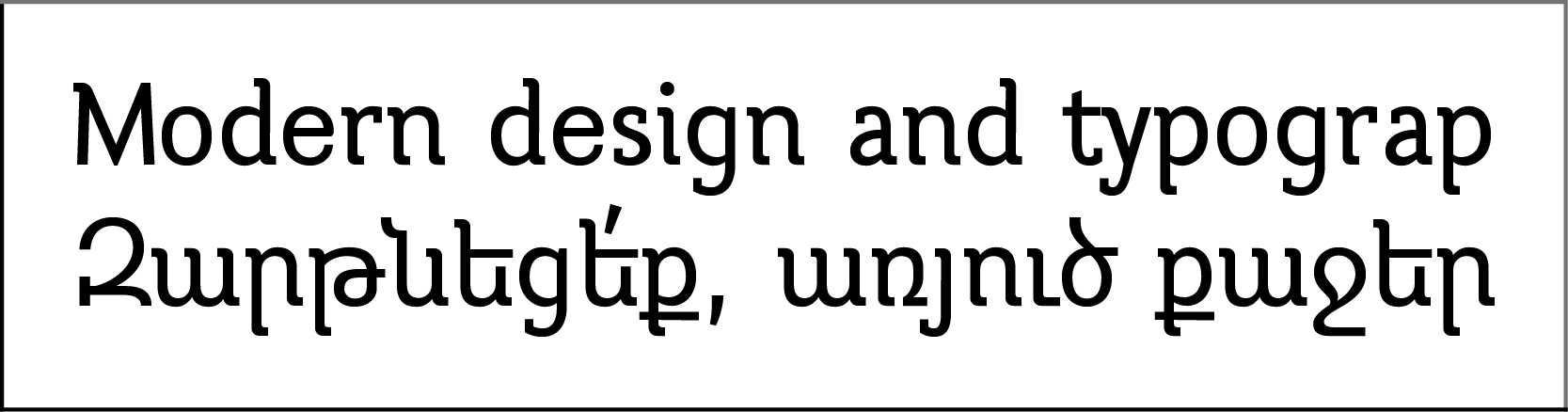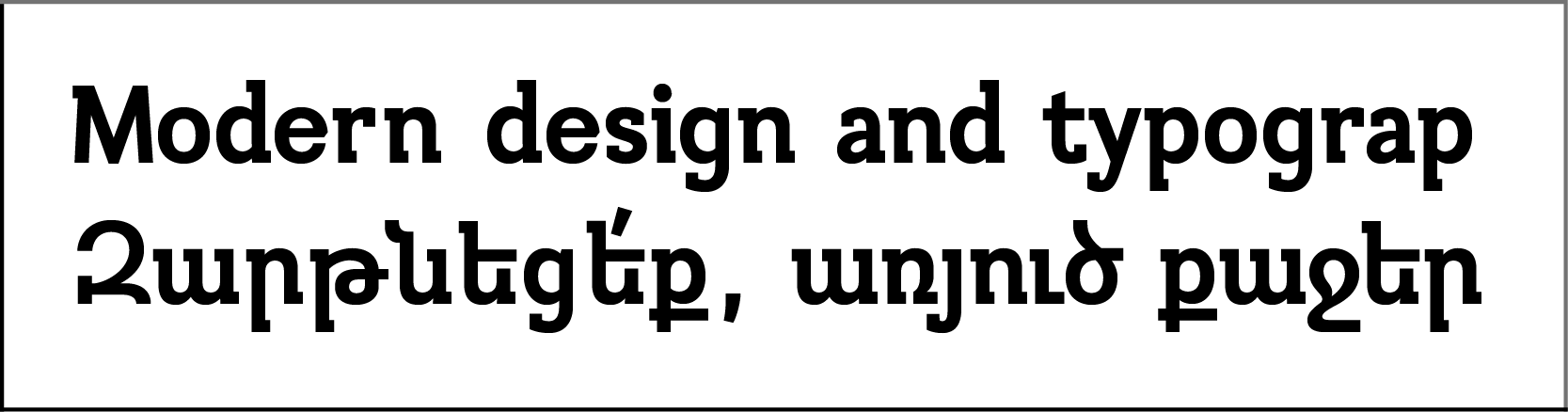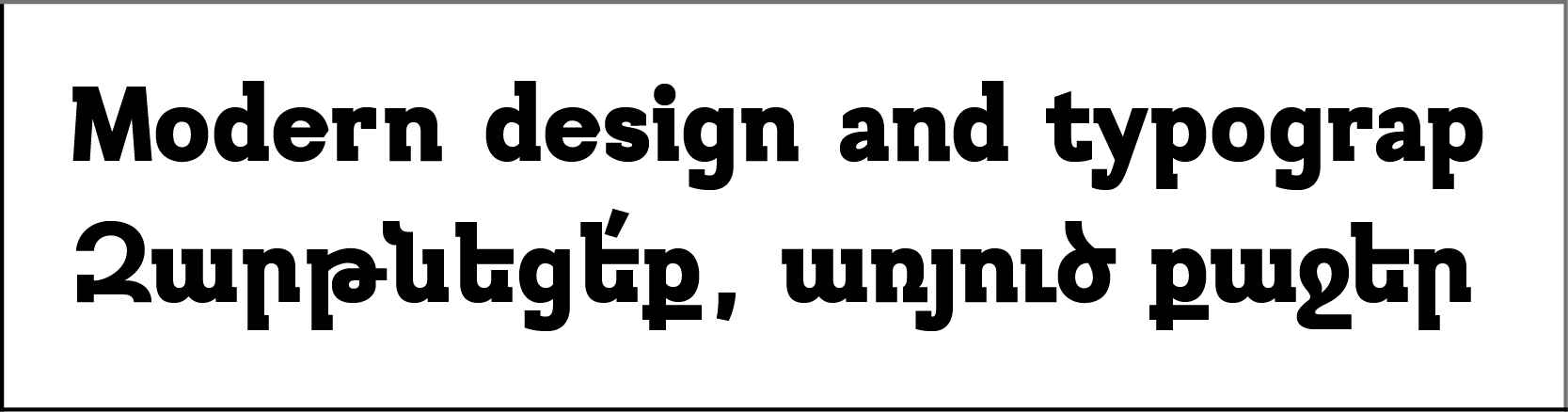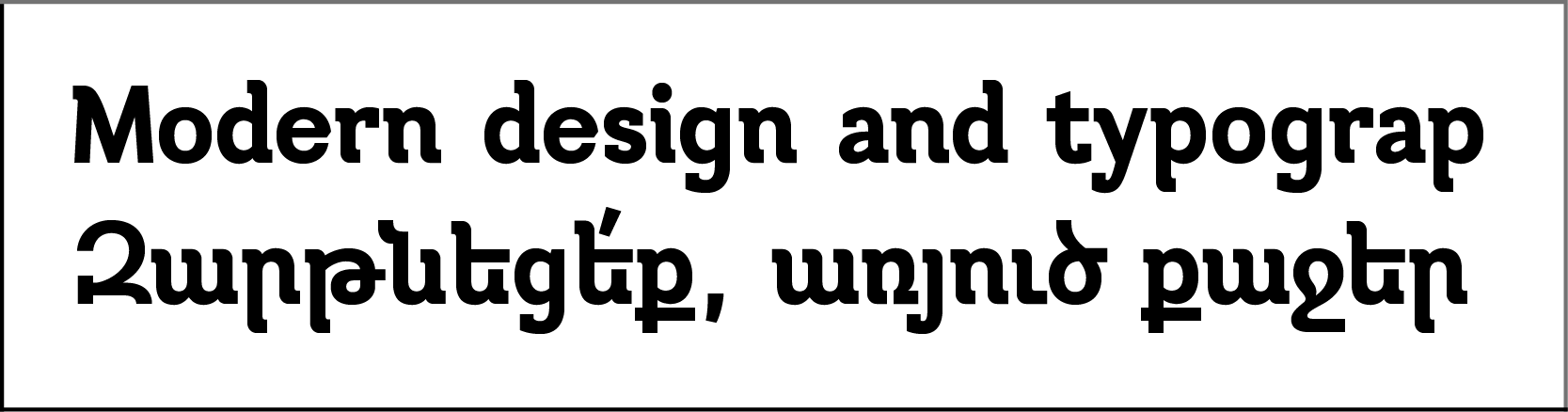
HASH Ani Soft
Designer: Hrachuhi Grigoryan
Design date: 2016
The serif font family includes: Armenian and Latin alphabet systems. It has 10 weights:   Regular, Italic, Medium, Medium Italic, SemiBold, SemiBold Italic, DemiBold, DemiBold Italic, Bold, Bold Italic.
To be used in texts, posters, and titles.
If you are looking for the Italics, you can use HASH Ani typeface’s Italics as they are identical.